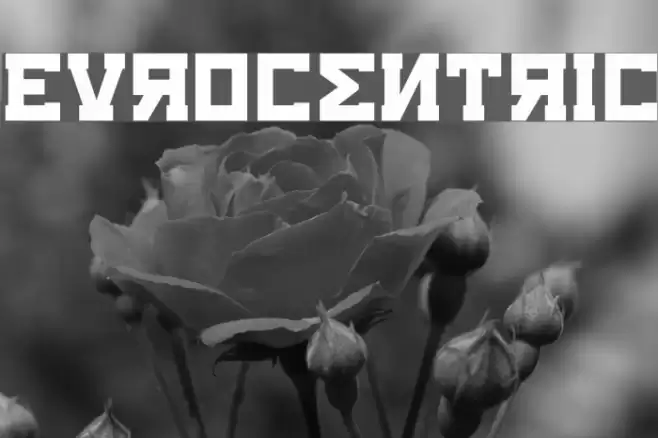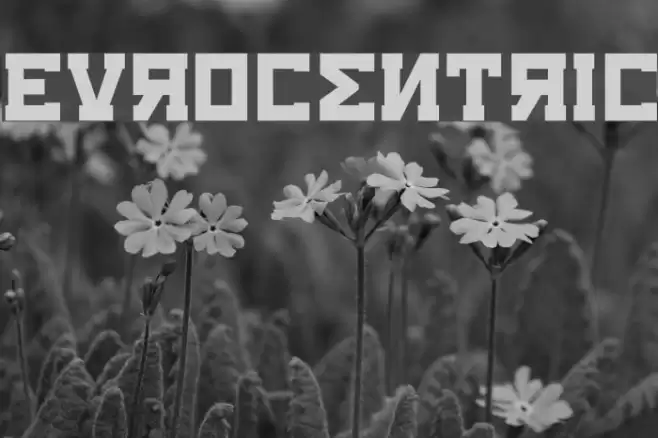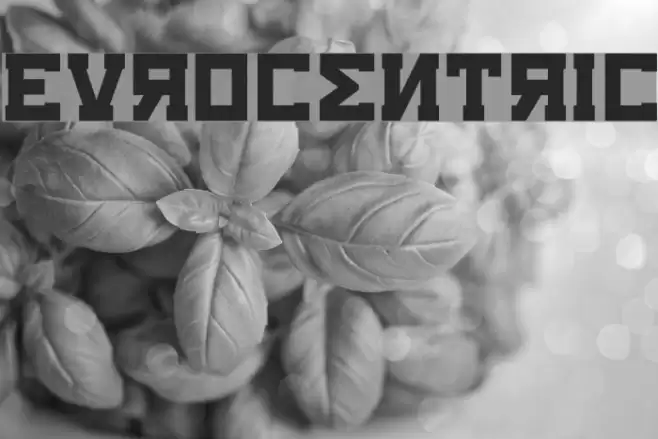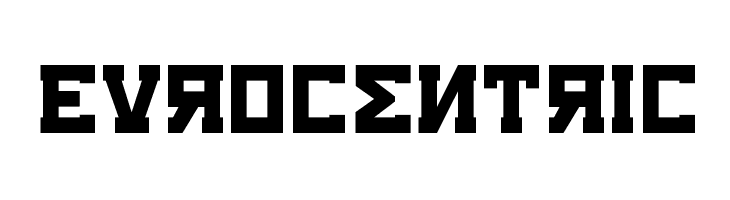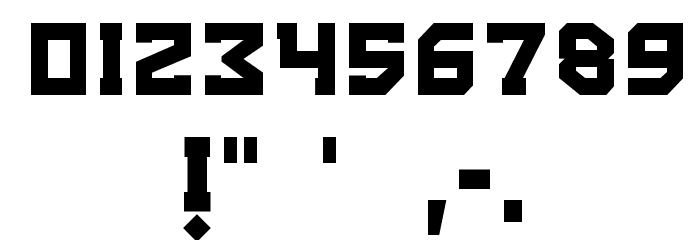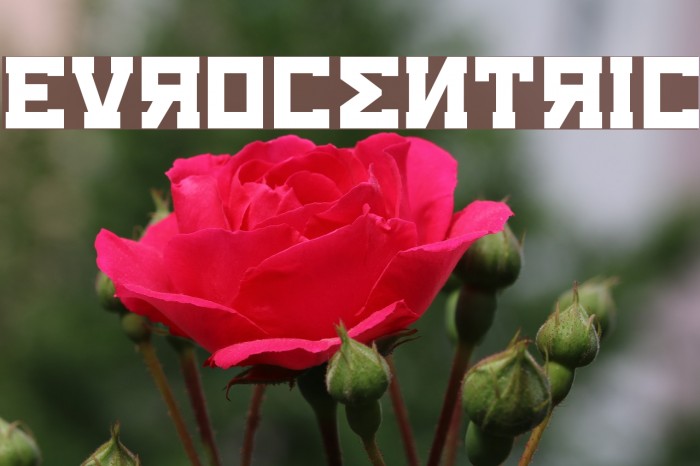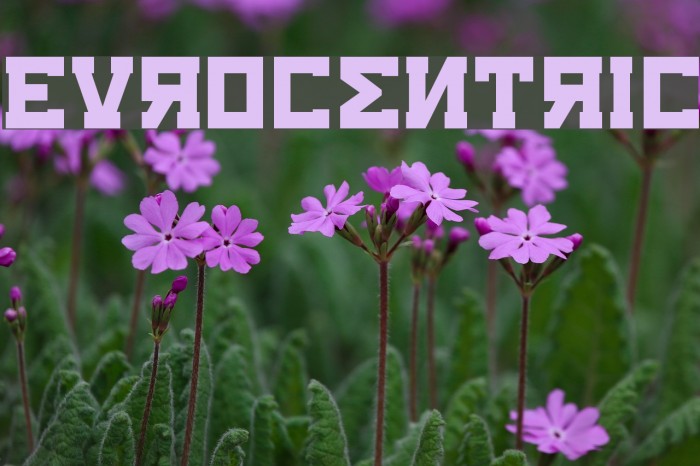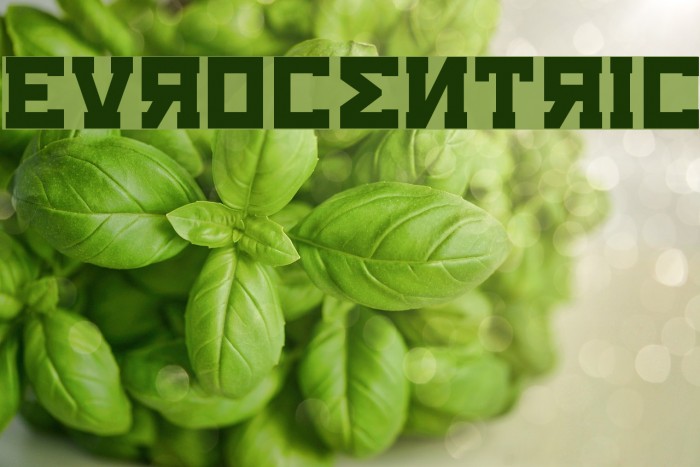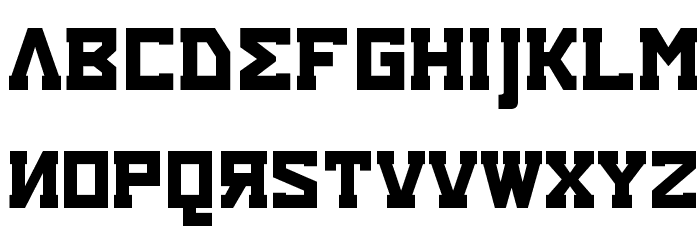
Eurocentric Font
Eurocentric Description
This font features a bold, geometric design with a strong emphasis on angular shapes and sharp edges. The characters are constructed with a uniform stroke width, giving them a solid and robust appearance. The uppercase letters are particularly striking, with a block-like structure that conveys a sense of strength and stability. The lowercase letters maintain the same geometric style, ensuring consistency throughout the typeface. Numbers and special characters are designed to match the bold and angular aesthetic, making this font suitable for impactful and attention-grabbing designs.
A bold, geometric font with angular shapes and uniform stroke width from Script fonts.
- Proposed Projects: Ideal for posters, logos, and branding materials that require a strong visual impact.